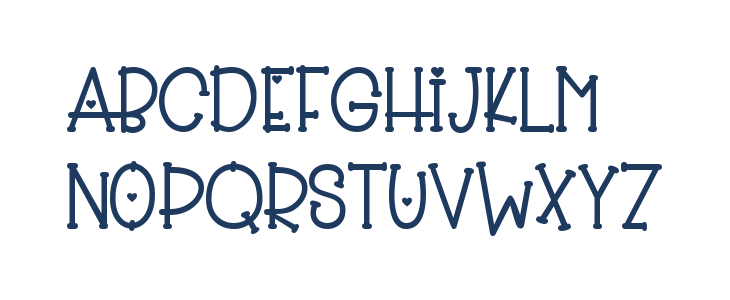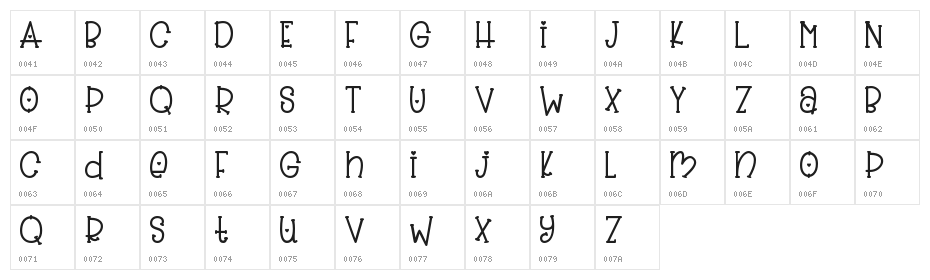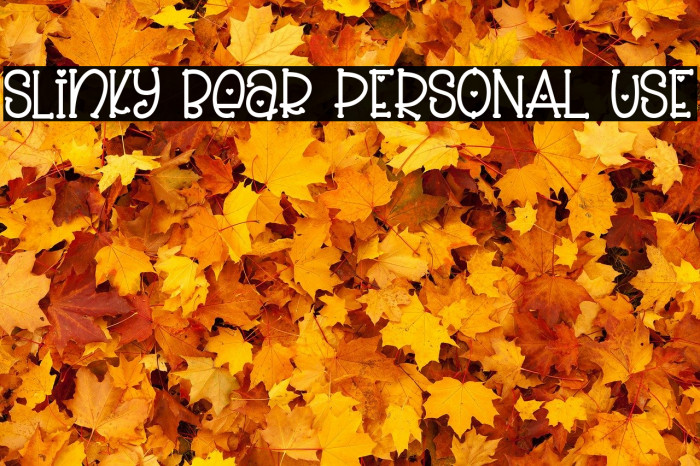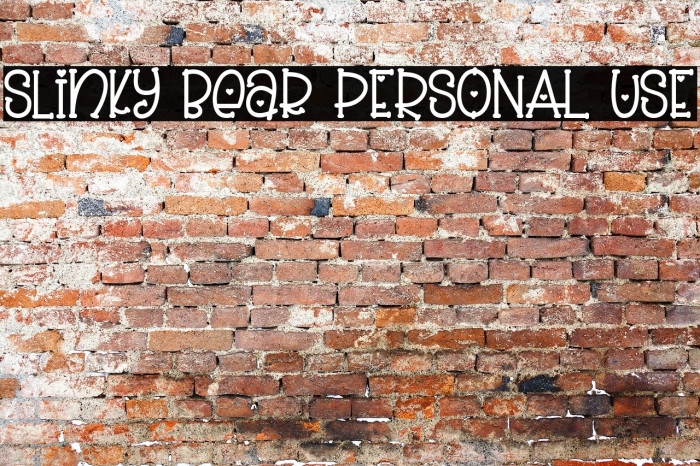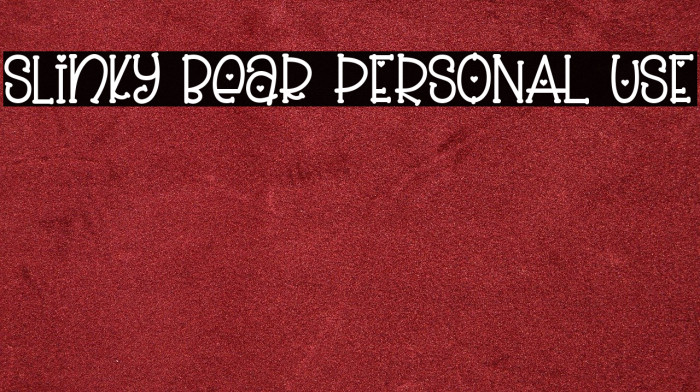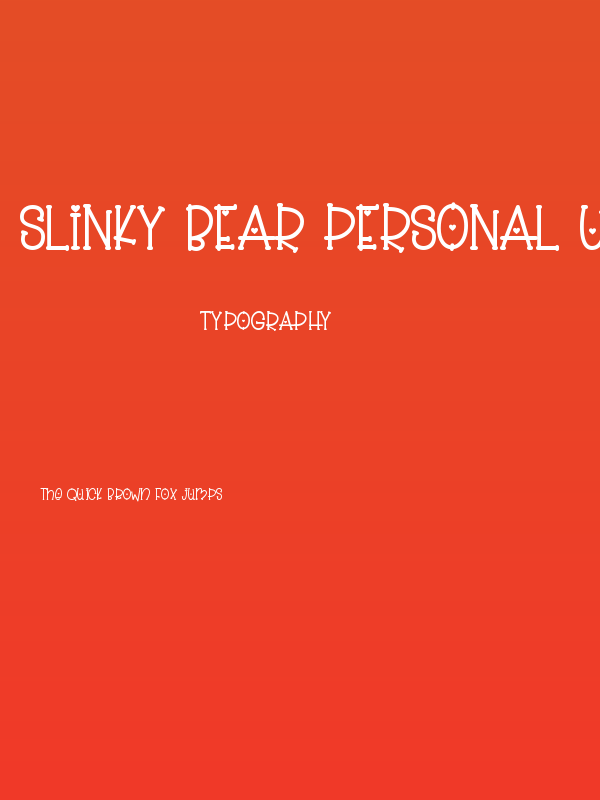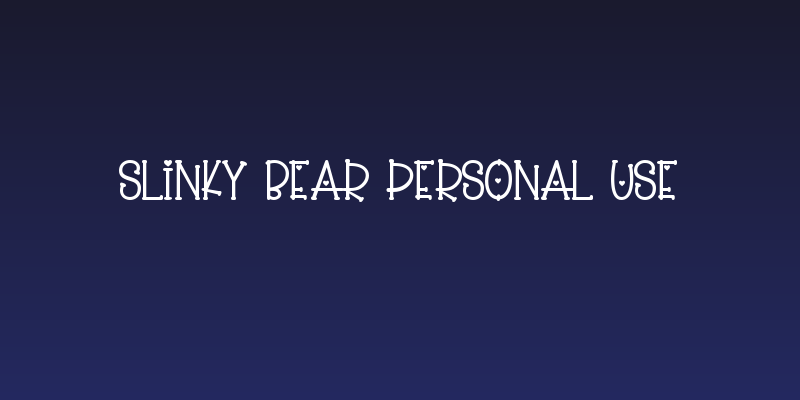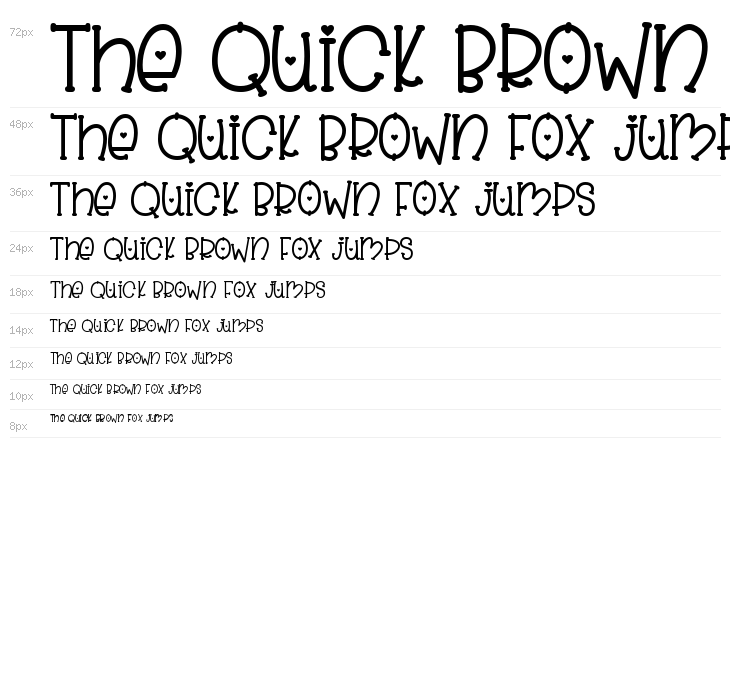
Slinky Bear PERSONAL USE Font
Slinky Bear PERSONAL USE Description
This playful and whimsical font features a unique design with rounded edges and decorative elements, such as small hearts and dots, integrated into the letterforms. The characters are bold and have a consistent stroke width, creating a cohesive and eye-catching appearance. The uppercase and lowercase letters maintain a uniform style, while the numerals and special characters complement the overall aesthetic. This font's distinct personality makes it suitable for projects that require a fun and engaging visual impact.
Fonts by Colette Barton
| Overall Style | Whimsical, Playful |